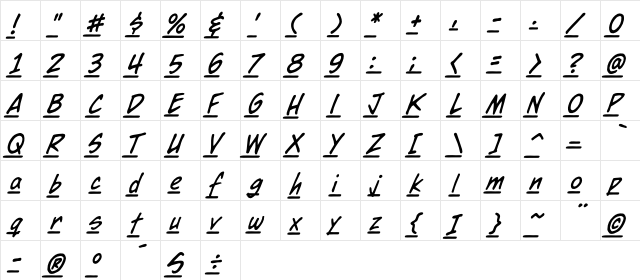
CCDearDiary Bold
| Foundry | Active Images |
| Designer | Richard Starkings |
Design Context for CCDearDiary Typeface
CCDearDiary is a composed and adaptable typeface that performs quietly and consistently across a wide range of design contexts. The heavy weight commands attention and anchors typographic hierarchies.